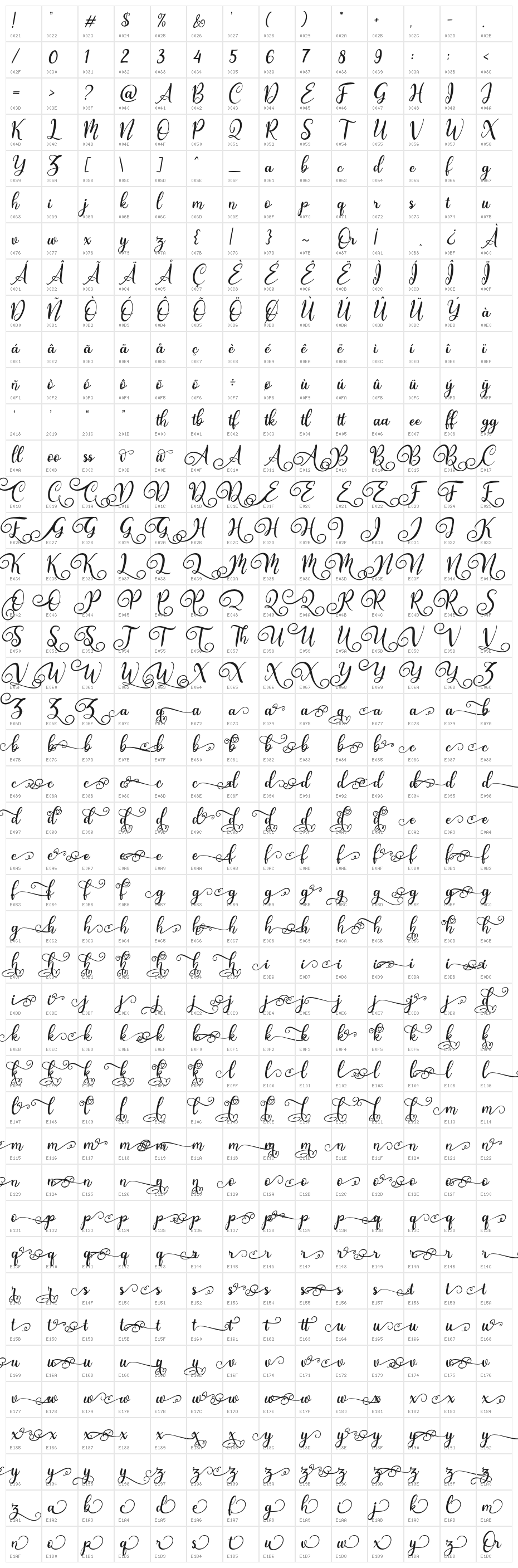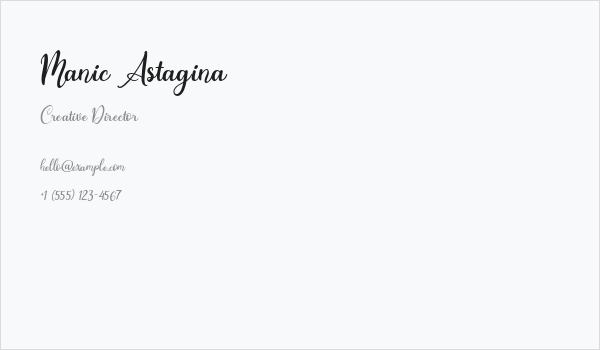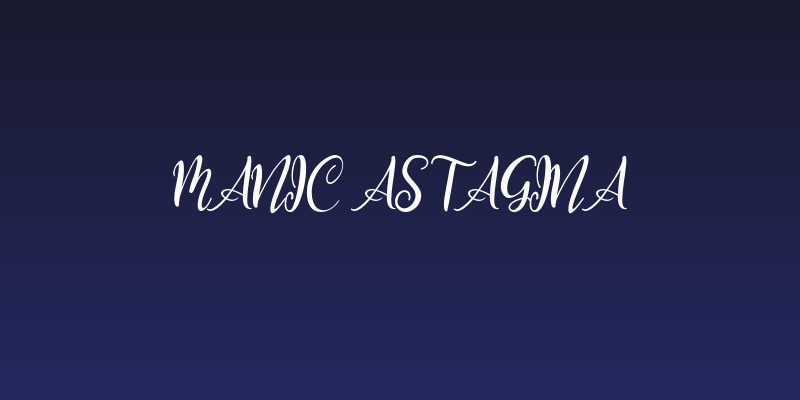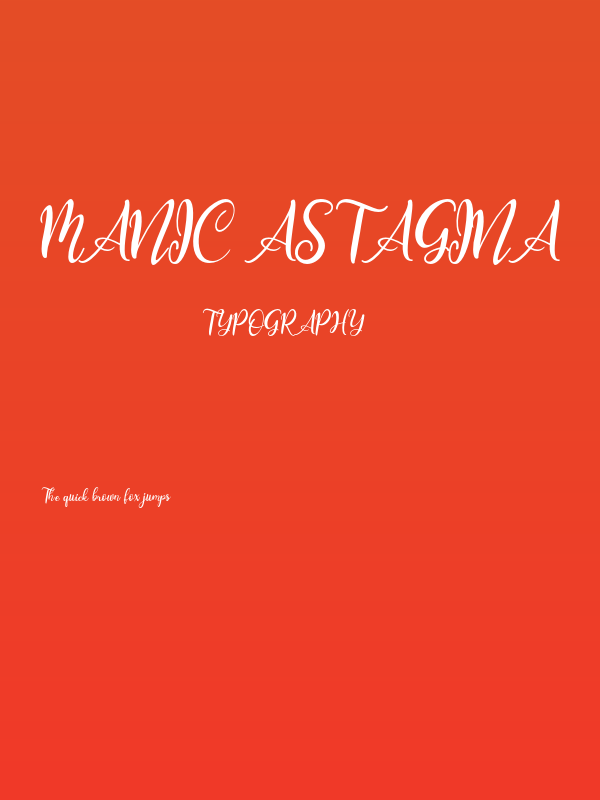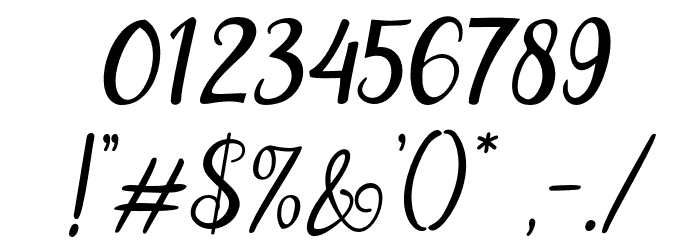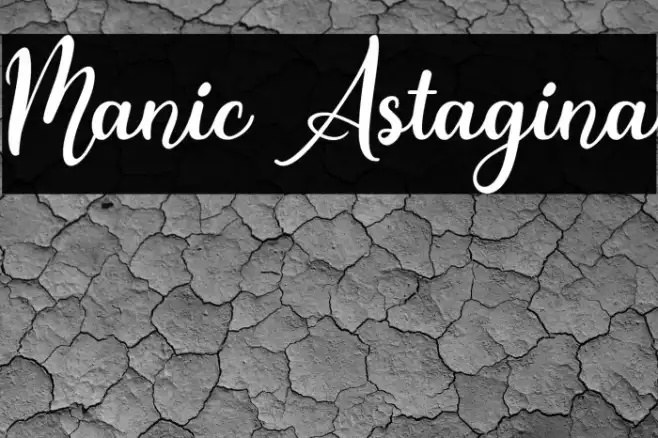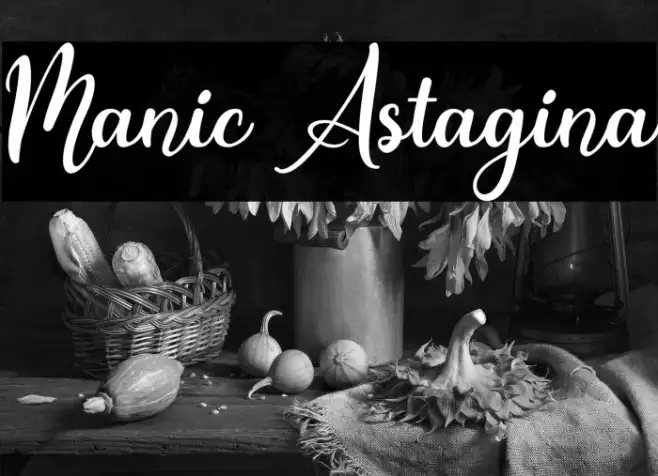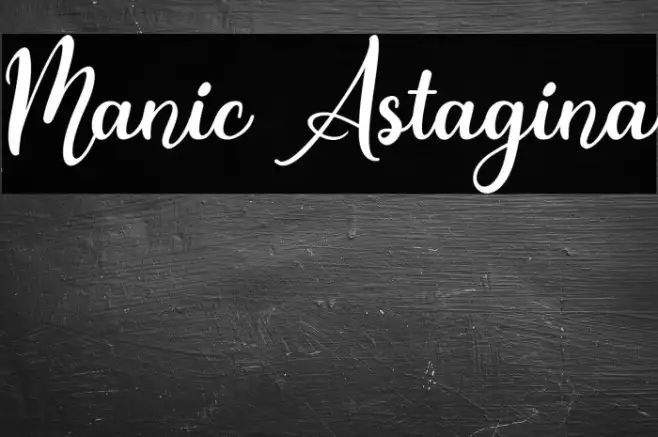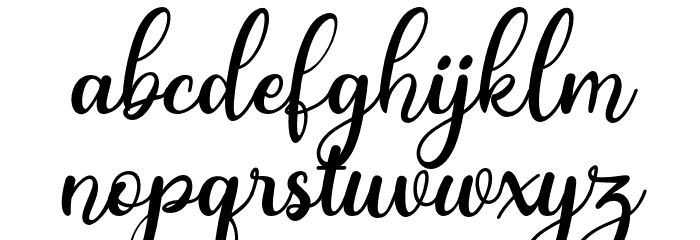
Manic Astagina Font
Manic Astagina Description
This font exudes a lively and elegant script style, characterized by its flowing, cursive letterforms. The uppercase letters are ornate and feature graceful loops and swashes, while the lowercase letters maintain a consistent rhythm with smooth, connected strokes. The numerals are distinct and maintain the script style, adding a touch of sophistication. Special characters are designed to complement the overall aesthetic, making them suitable for decorative purposes. The font's playful yet refined nature makes it ideal for creative projects that require a personal touch.